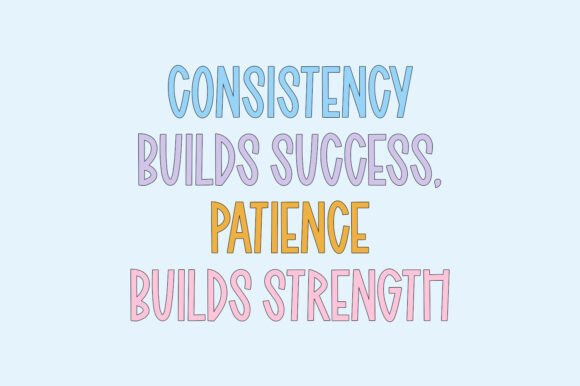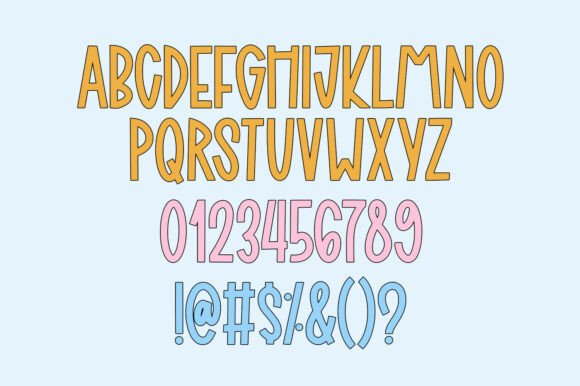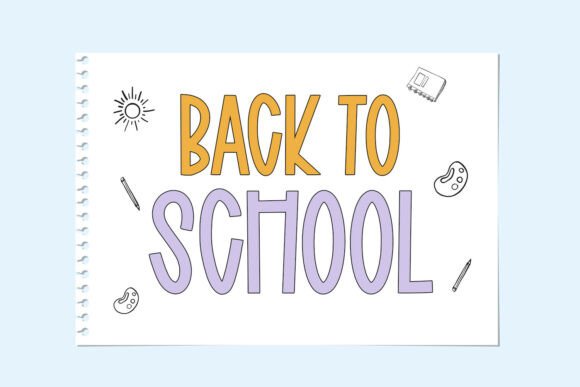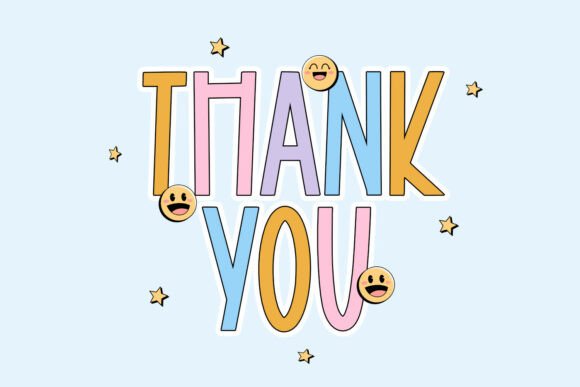
Introduction to Color Shades Font
Imagine you’re scrolling through your social media feed and come across a post that instantly brightens up your day. The vibrant colors, playful graphics, and cheerful typography all combine to create a visual experience that leaves you smiling. This is the magic of creative design, and it’s exactly what the Color Shades Font is designed to bring to your projects.
As designers, we’re always on the lookout for high-quality fonts that can help us convey our message in a unique and engaging way. The Color Shades Font is a perfect addition to any design resource library, offering a transparent background and a range of expressive characters that are sure to add a touch of personality to your work.
Key Features of Color Shades Font
- High-quality design for creative projects, including logos, branding, and graphics
- Transparent background, allowing for seamless integration with any design
- Unique characteristics include a vibrant color palette and elegant typography, perfect for making a statement in any design
Honest Review: Color Shades Font
As a designer, I’m always on the lookout for high-quality fonts that can elevate my creative projects. The Color Shades Font is a great addition to my design resource library. It’s a free download that’s perfect for anyone looking to add a touch of sophistication to their designs.
- ✨ The font’s transparent background makes it easy to layer over other design elements.
- ✨ The color palette is diverse and can be used in a variety of creative projects, from branding to web design.
- ✨ The font is highly customizable, allowing you to adjust the size, color, and style to suit your needs.
- ⚠️ The font may not be suitable for large-scale text, as it can become difficult to read at smaller sizes.
- ⚠️ Some users may find the font’s style too minimalist, which can make it harder to pair with other design elements.
Color Shades Font
The Color Shades Font is a versatile and high-quality design resource ideal for various creative projects. Its unique and intricate details make it perfect for adding a touch of elegance to your work.
Tips for Getting the Most Out of Color Shades Font
Experiment with different font sizes and styles to add depth and interest to your designs. You can also use it in combination with other design elements to create a unique and eye-catching look.
The Color Shades Font is perfect for creating high-quality designs for various creative projects, including branding, marketing materials, and digital art. Its transparent background makes it ideal for use on a variety of backgrounds and design elements.